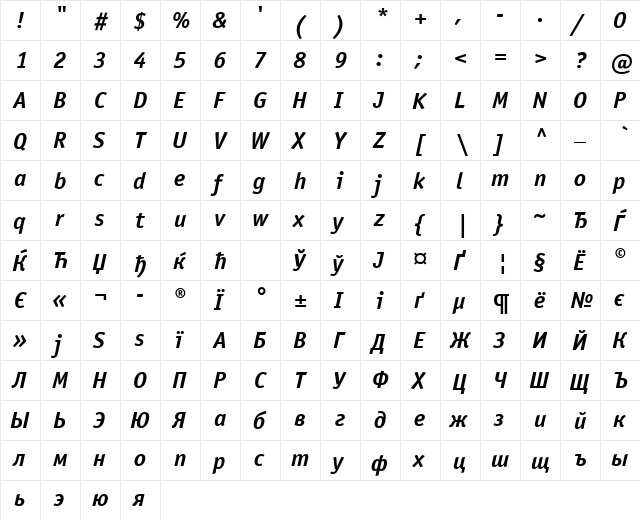
OfficinaSansWinCTT BoldItalic
Design Context for OfficinaSansWinCTT Typeface
OfficinaSansWinCTT takes a measured approach to typography — its balanced proportions and neutral character make it a reliable workhorse for both digital and print work. The slanted form adds forward momentum and visual energy. Its bold stroke weight gives it real presence on the page.
Pro Tip: Use OfficinaSansWinCTT for emphasis, pull quotes, and subheadings where its slanted energy can add rhythm to the layout.